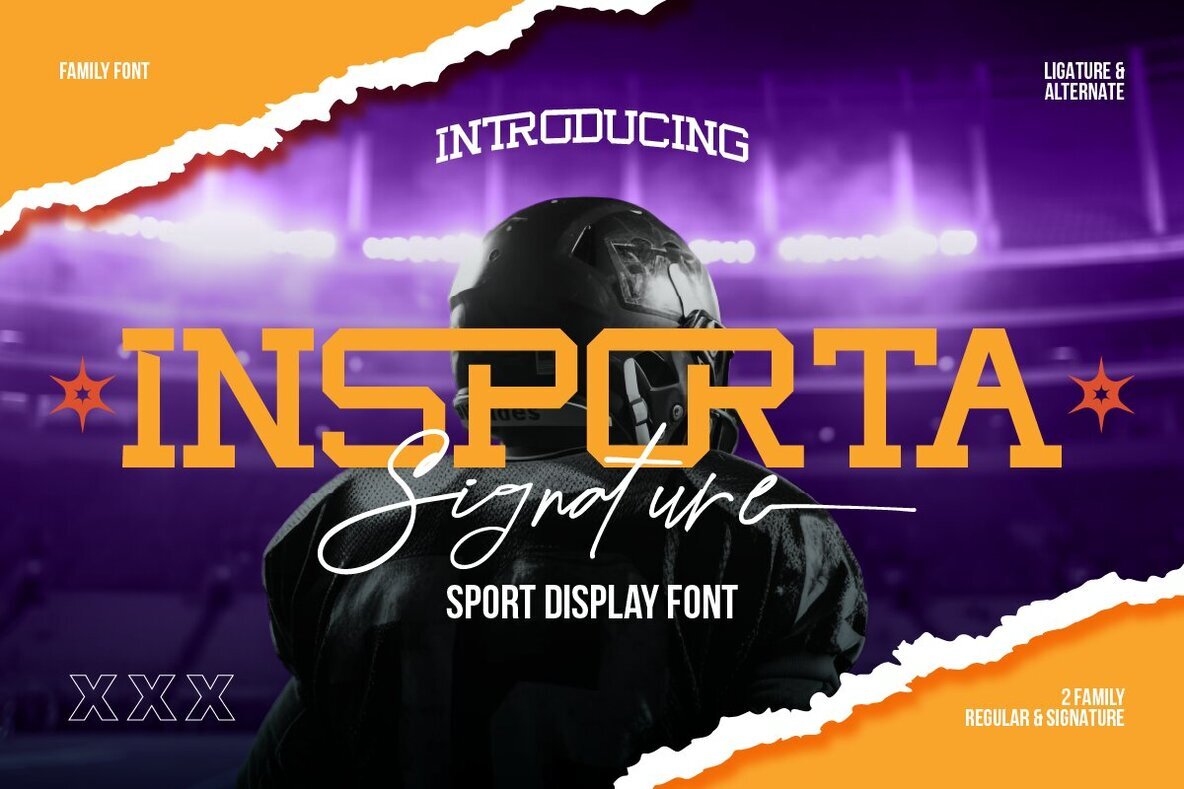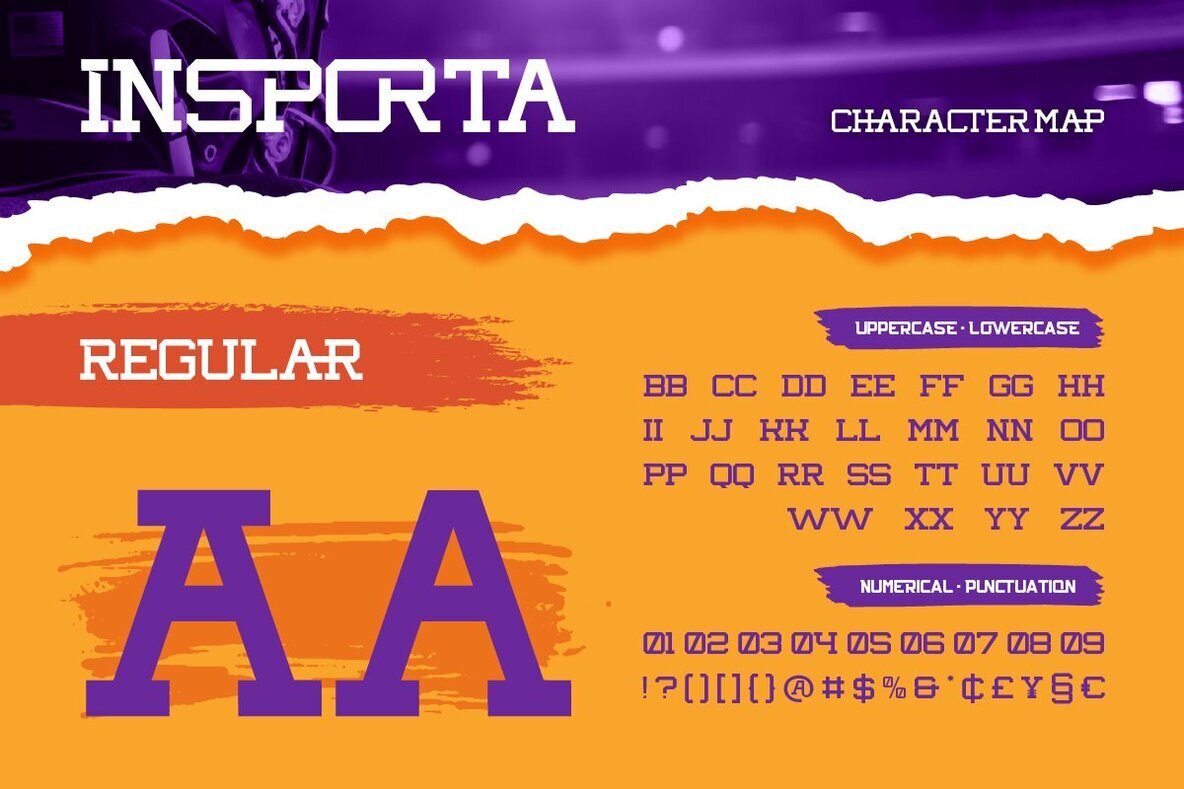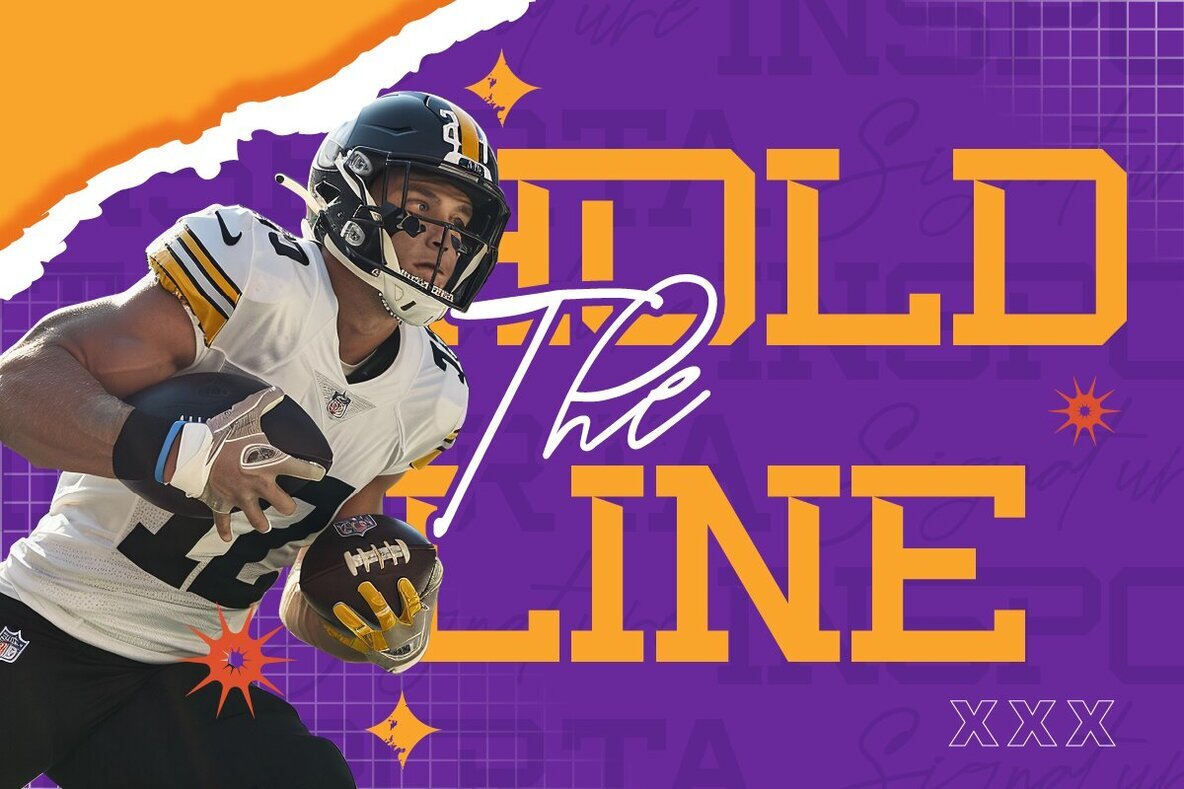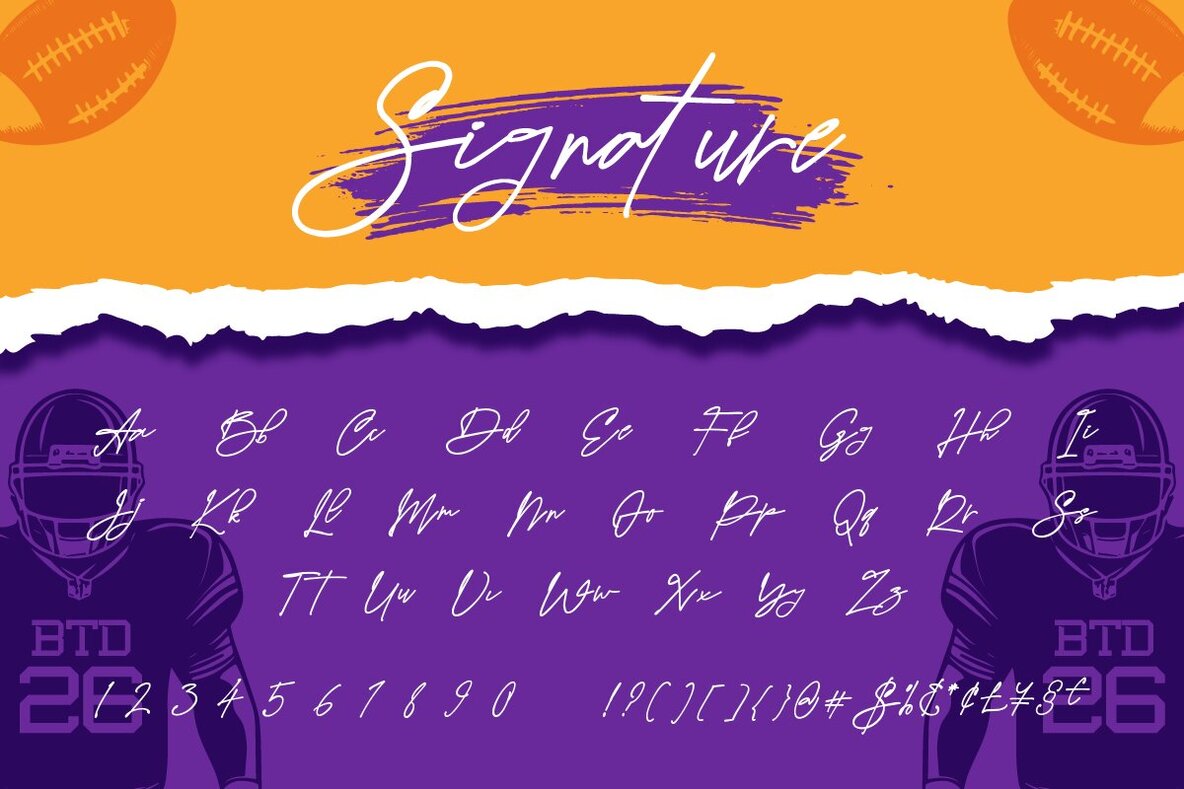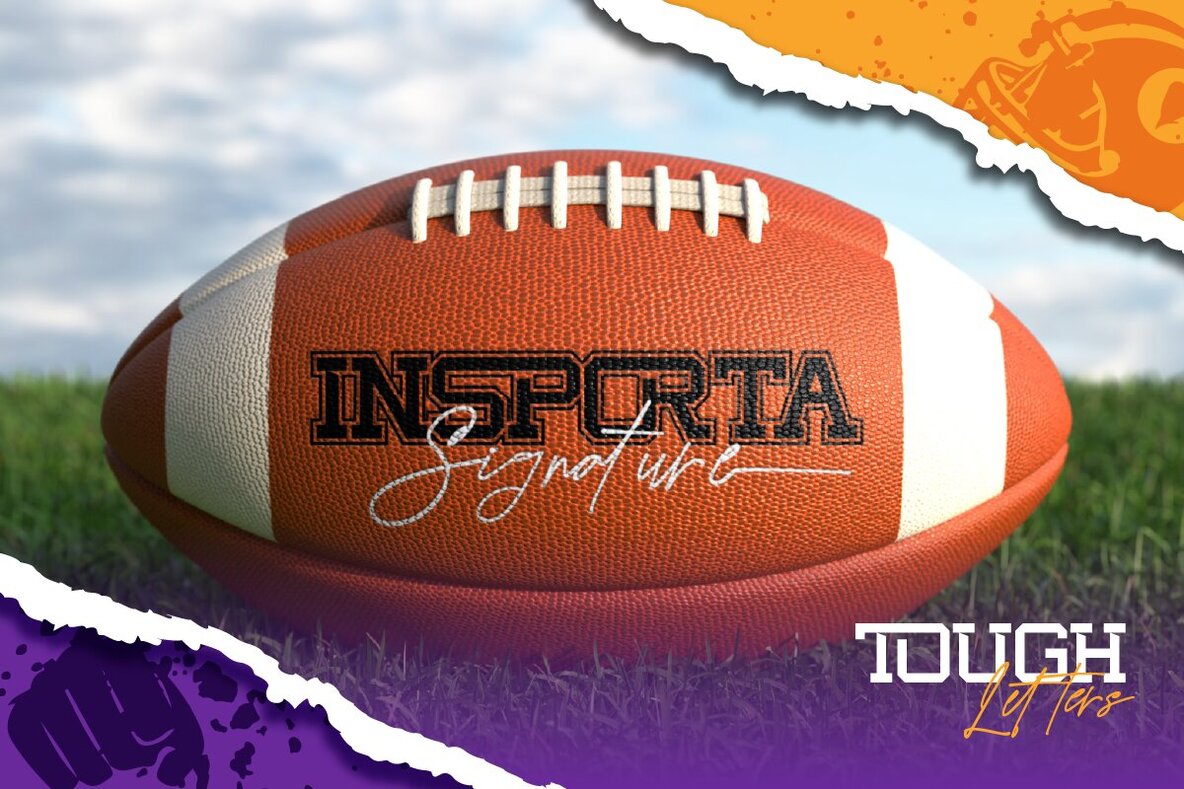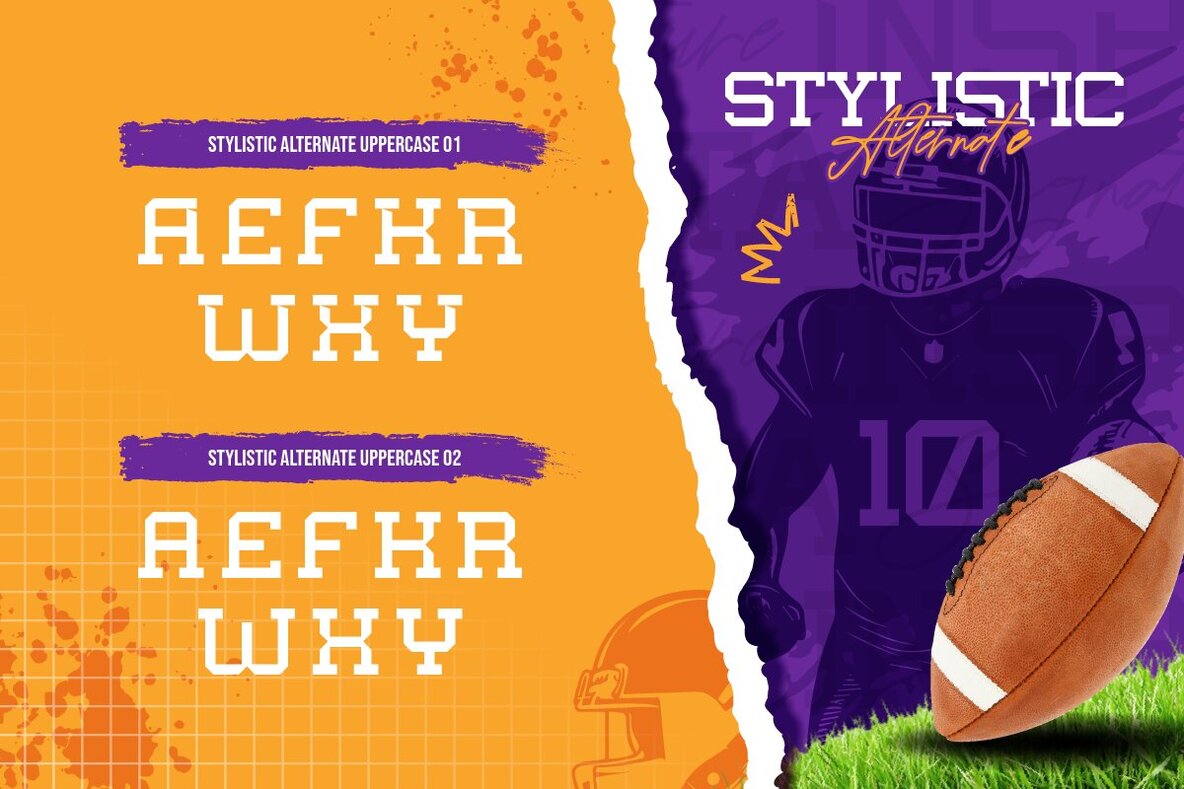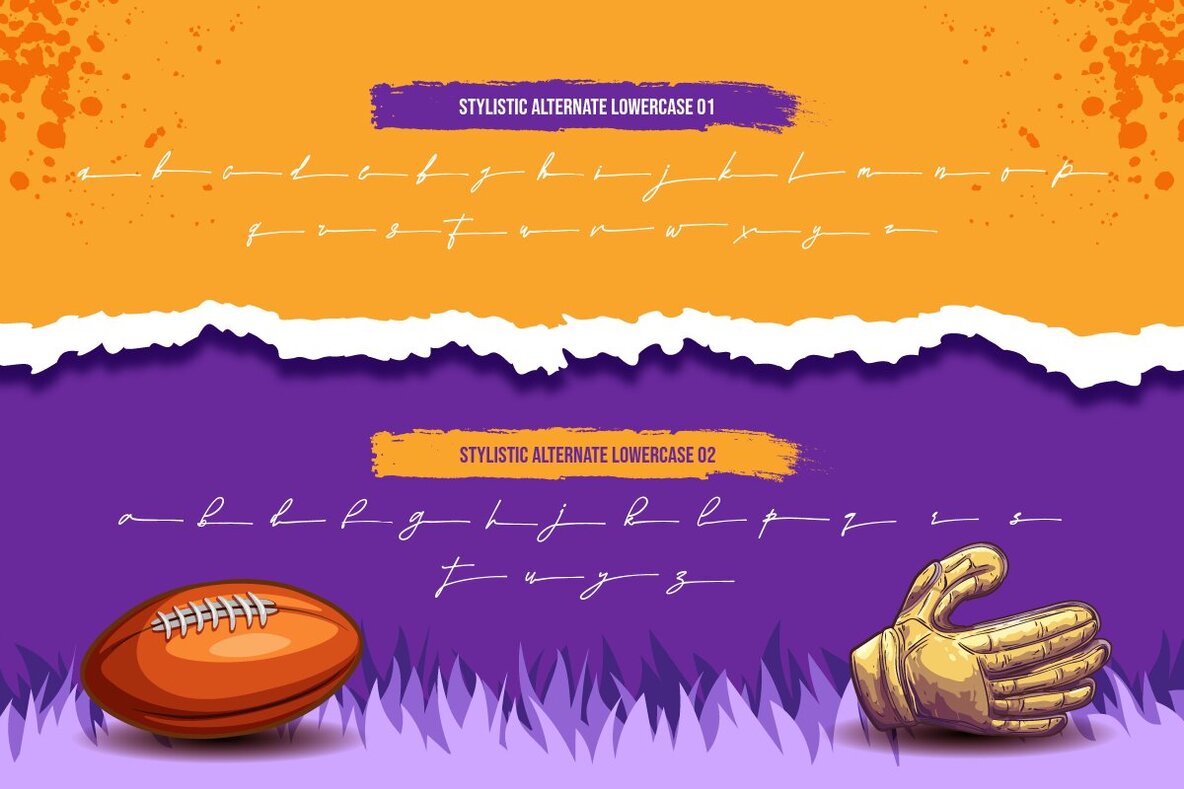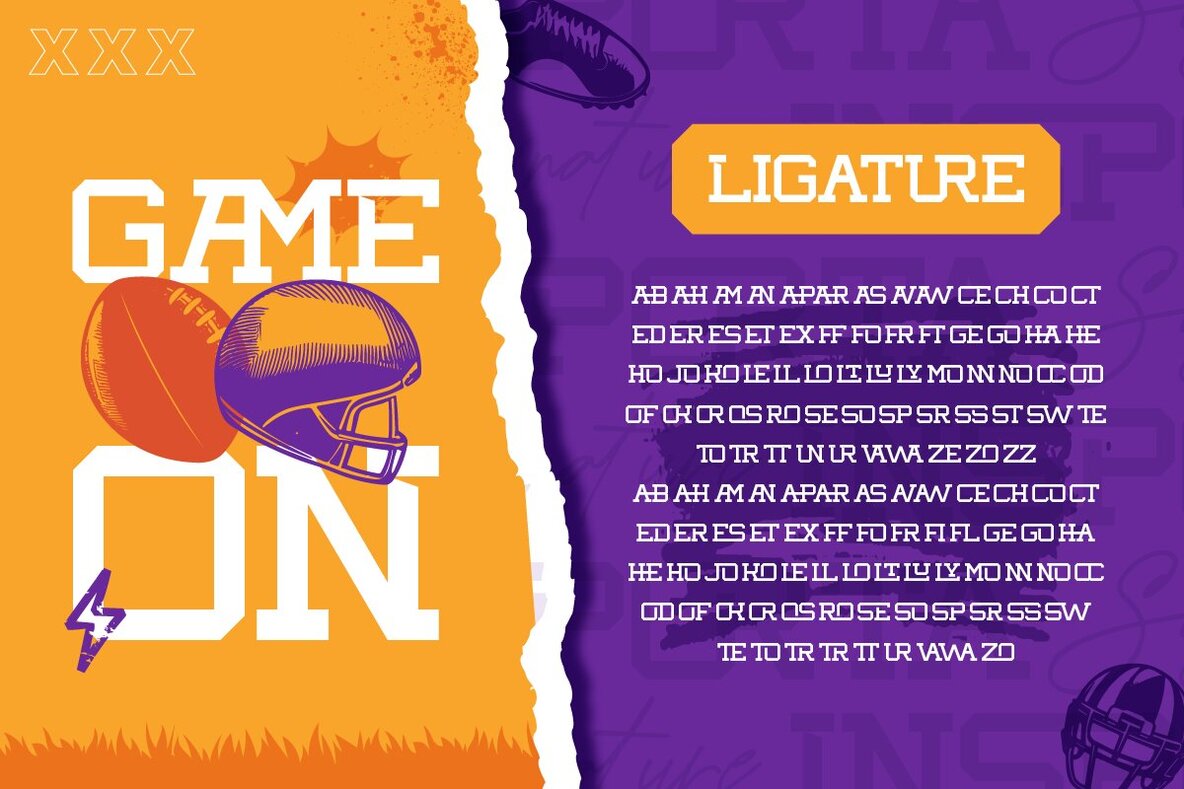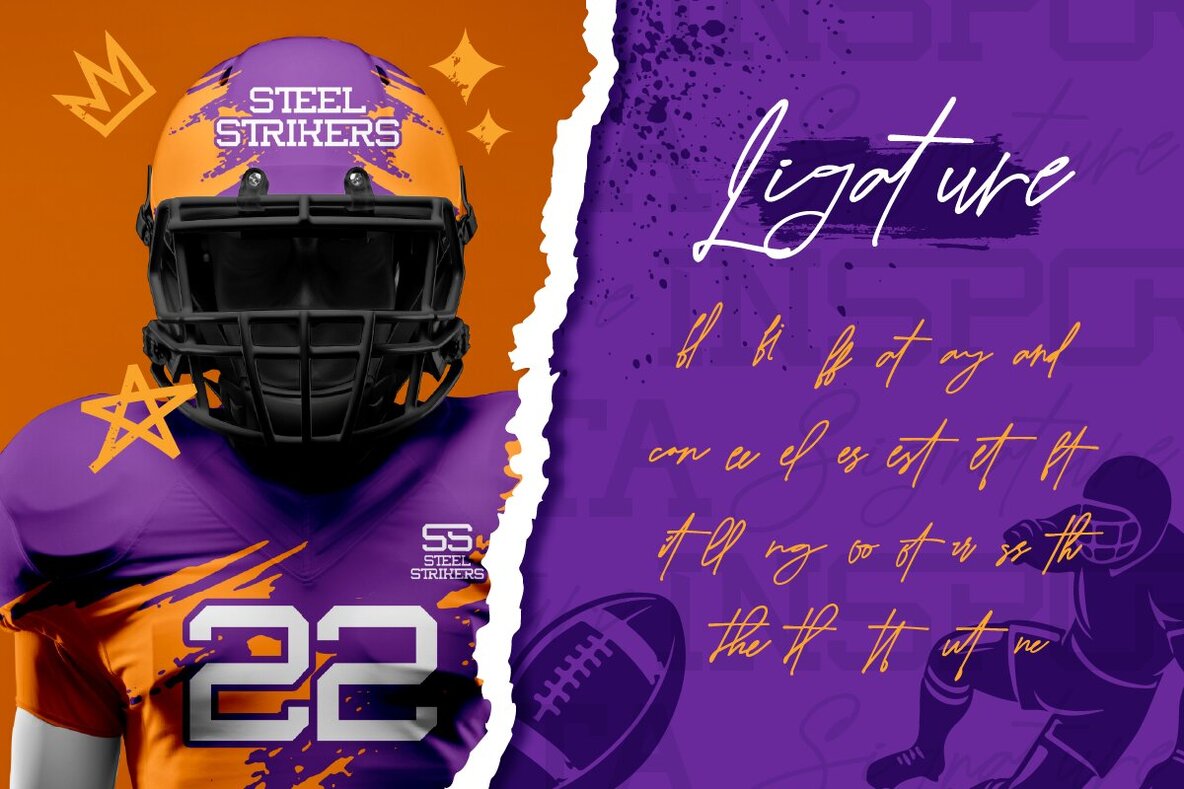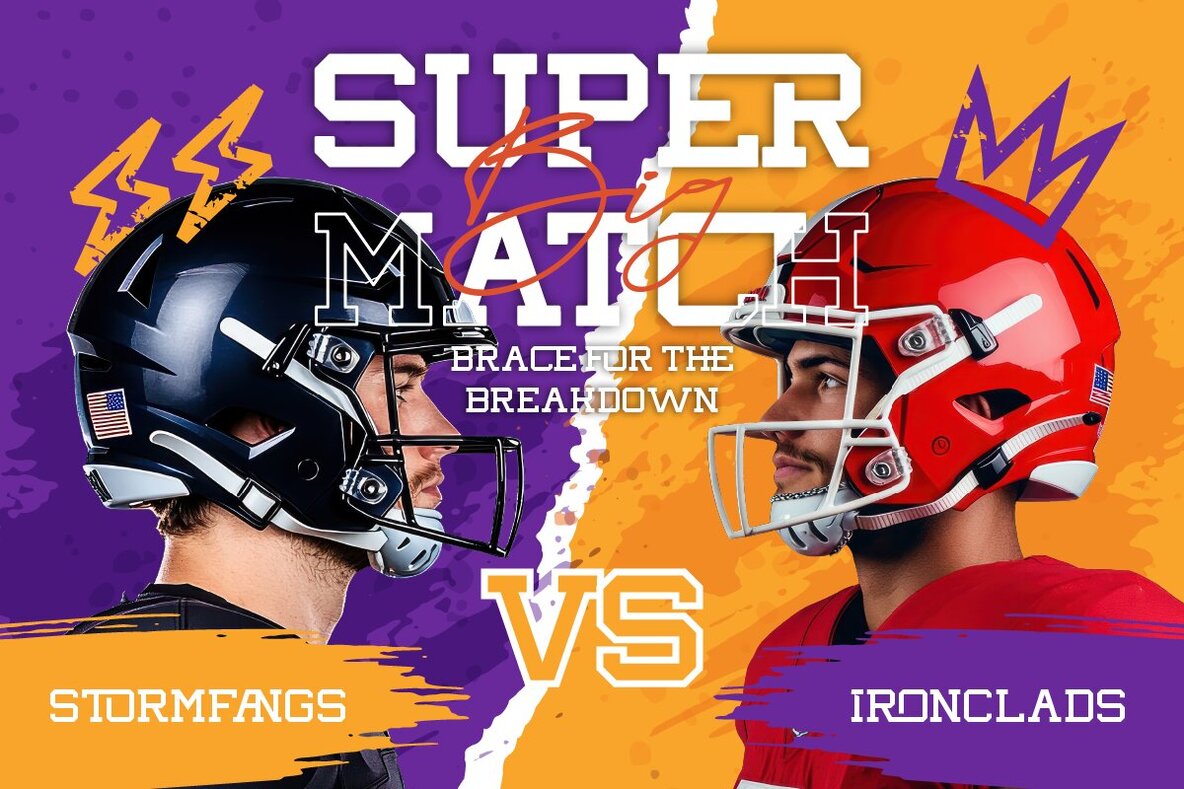
Insporta Signature Font
Elevate your designs with Insporta Signature, a dynamic font duo crafted to embody the vigor of athleticism. This sporty typeface expertly merges a robust all-caps serif, echoing the quintessential college varsity aesthetic, with a chic signature script. Ideal for sports branding, athletic posters, team logos, and game day paraphernalia, Insporta Signature imparts a signature blend of modern varsity style intertwined with a personal, handwritten flair. From capturing the excitement of a football match to enhancing designs for college events or fitness brands, this font artfully combines a classic varsity vibe with a contemporary handwritten approach. Insporta Signature ensures your designs deliver a "game day ready" appeal that distinctly resonates. Features:Insporta Signature: Dynamic Font Duo with a Competitive Edge